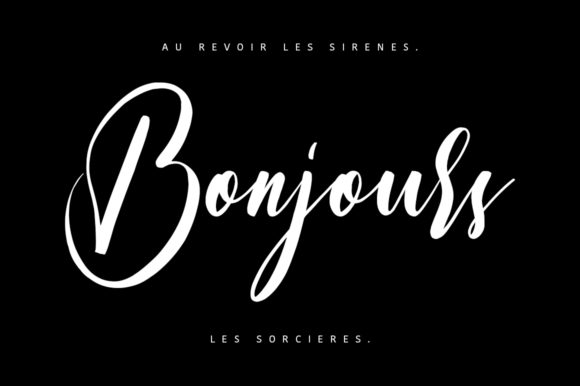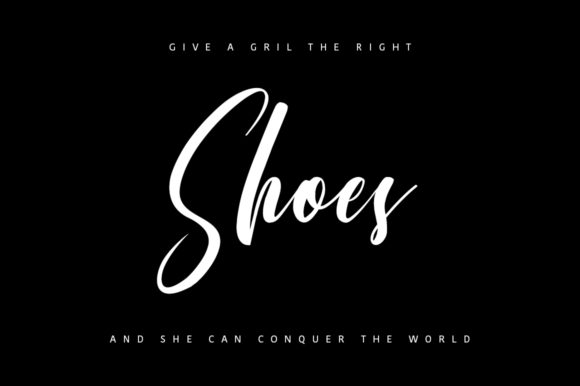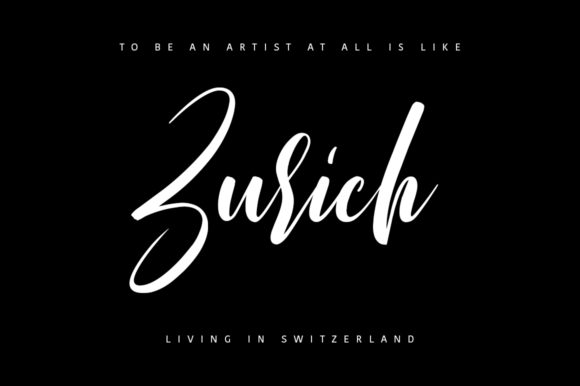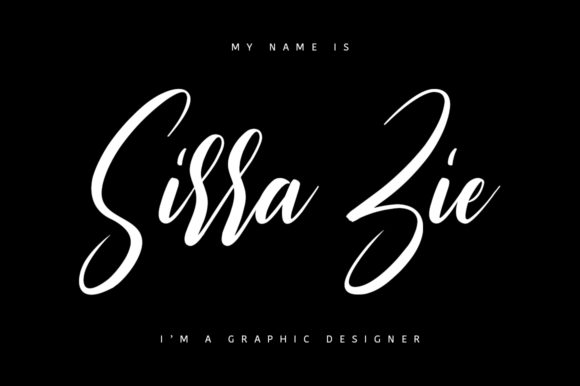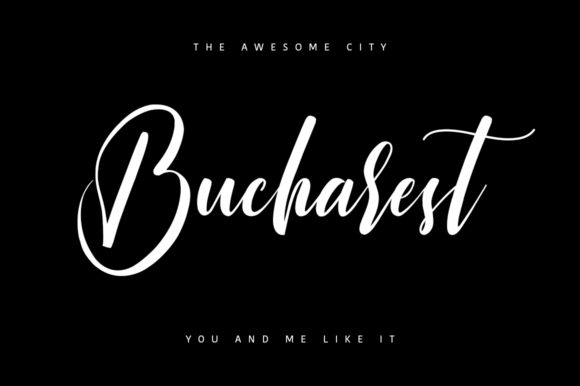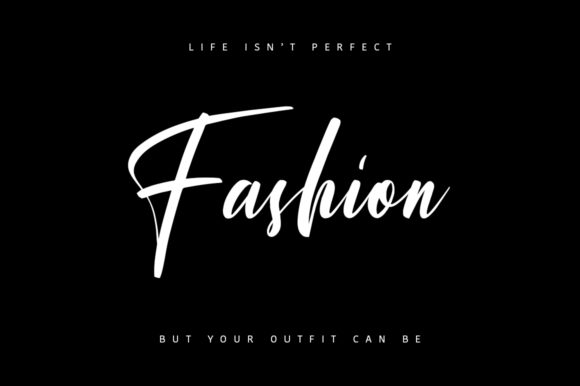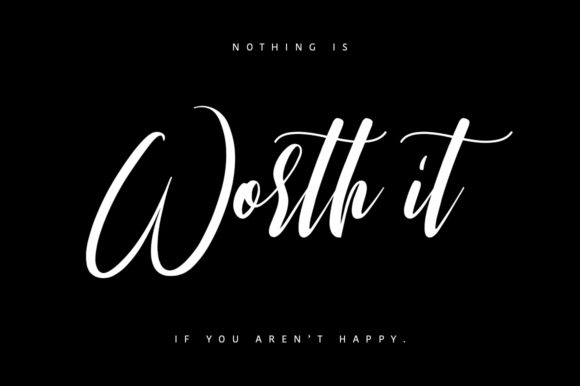
Rushfor Font
About Rushfor Font
Rushfor is a relaxed and timeless handwritten font. Fall in love with its incredibly versatile style and use it to create gorgeous wedding invitations, beautiful stationary art, eye-catching social media posts, and much more!